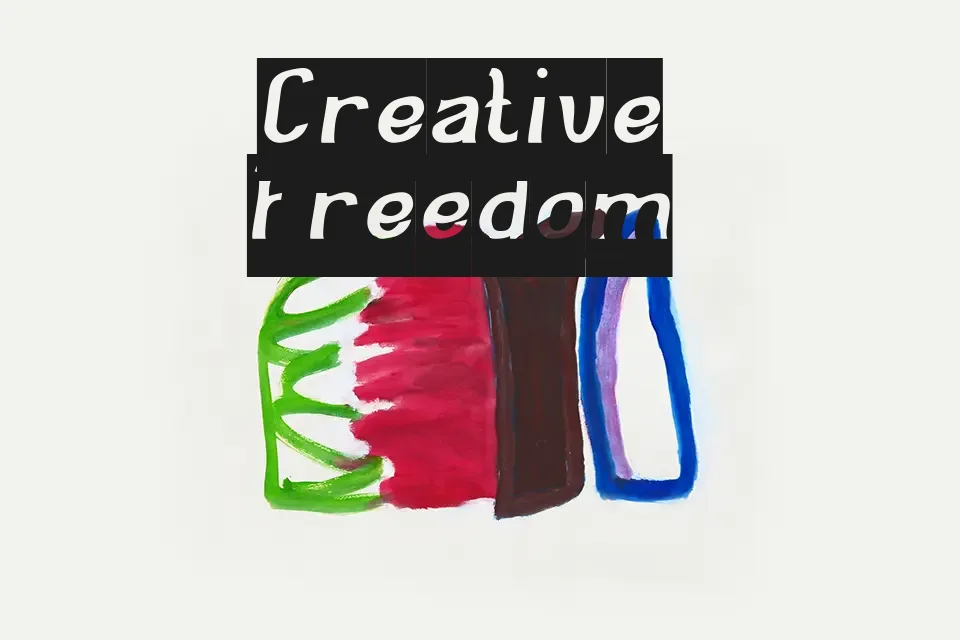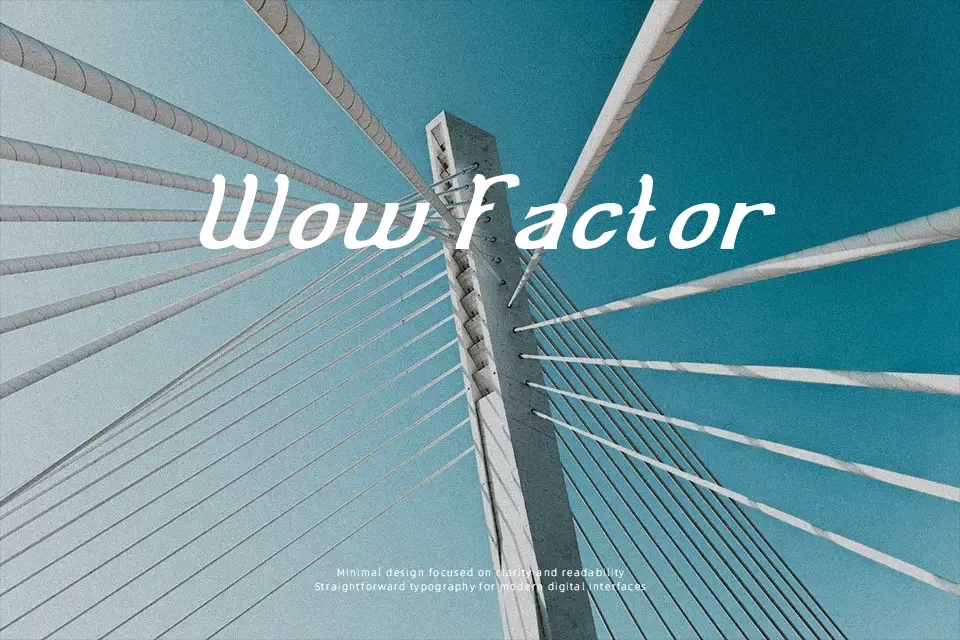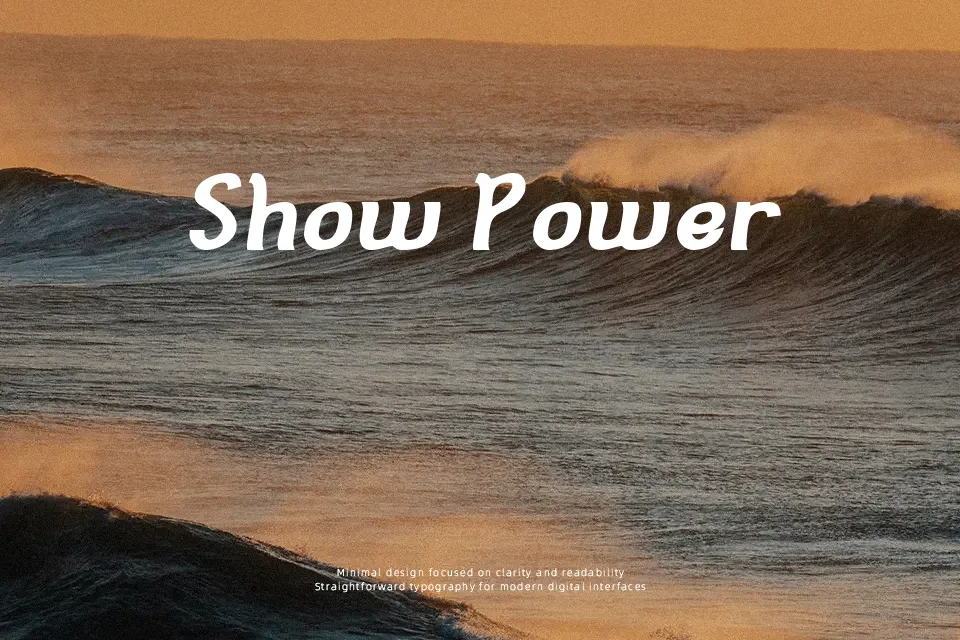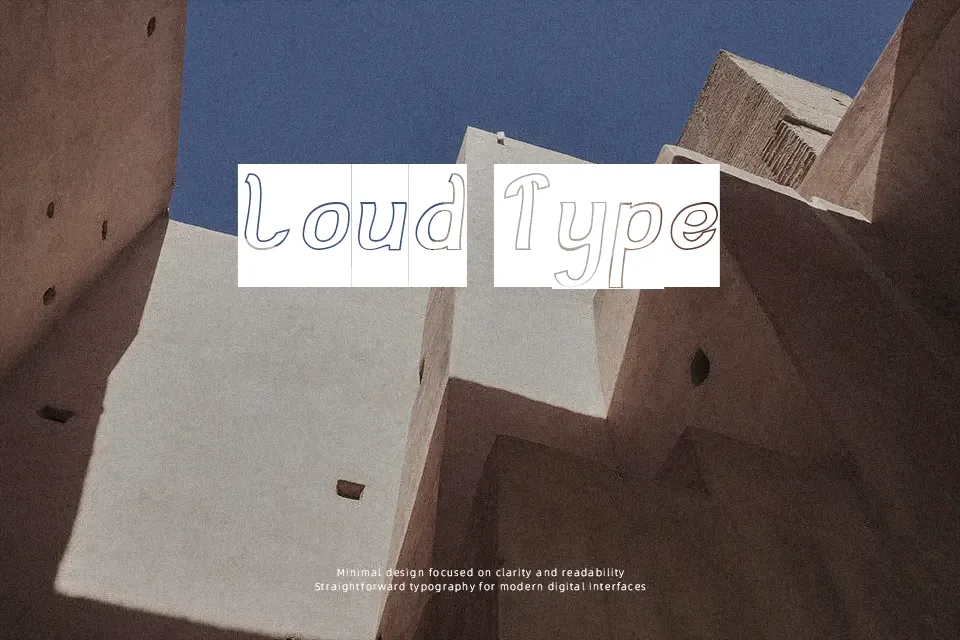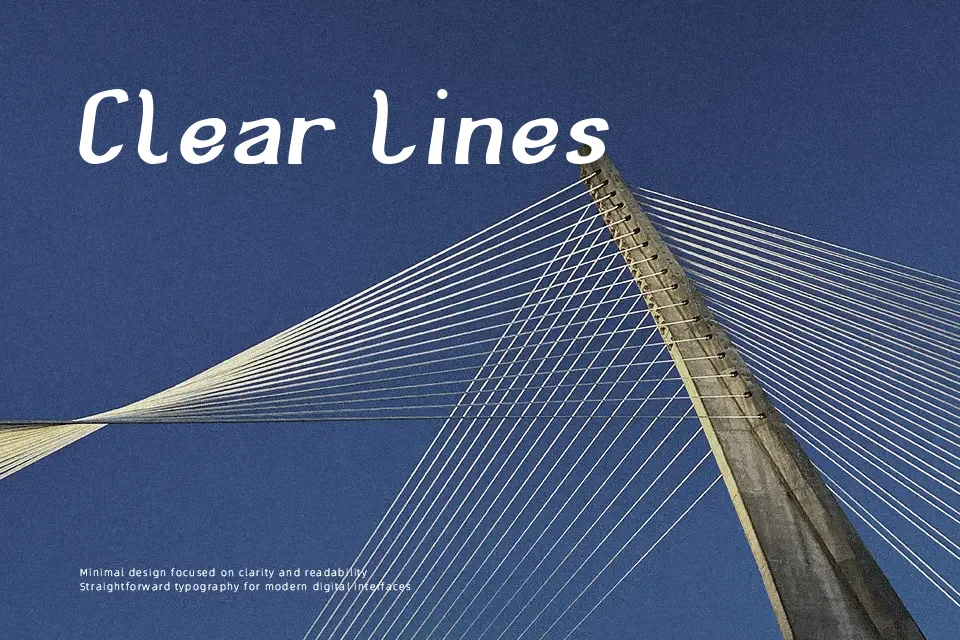
Cat Eyes Font
Engineered with energetic contours, Cat Eyes Font presents an animated decorative aesthetic characterized by uneven stroke weights, rounded terminals, and asymmetrical letter structures. The loose spacing and fluctuating baseline establish a buoyant visual rhythm across short titles, making the typeface effective for event posters, animated branding, and youth merchandise. Upper and lowercase glyphs maintain distinct structural quirks, offering immediate impact in prominent headline environments. However, the irregular proportions and heavy character density significantly impede legibility when applied to dense paragraphs or small interface captions. The design functions at its highest level when given ample breathing room in large, focal typography.
Best For: animated video thumbnails, youth merchandise graphics, arcade game title screens, casual event posters
Not Ideal For: long paragraph text, legal contracts, mobile user interface labels, dense editorial spreads